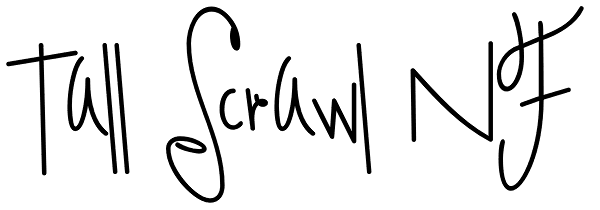
Tall Scrawl NF
This very free freehand script bounces across the page and enjoys every moment of it. Use it to liven things up! Both versions of the font include 1252 Latin, 1250 CE (with localization for Romanian and Moldovan).
Tall Scrawl NF Font